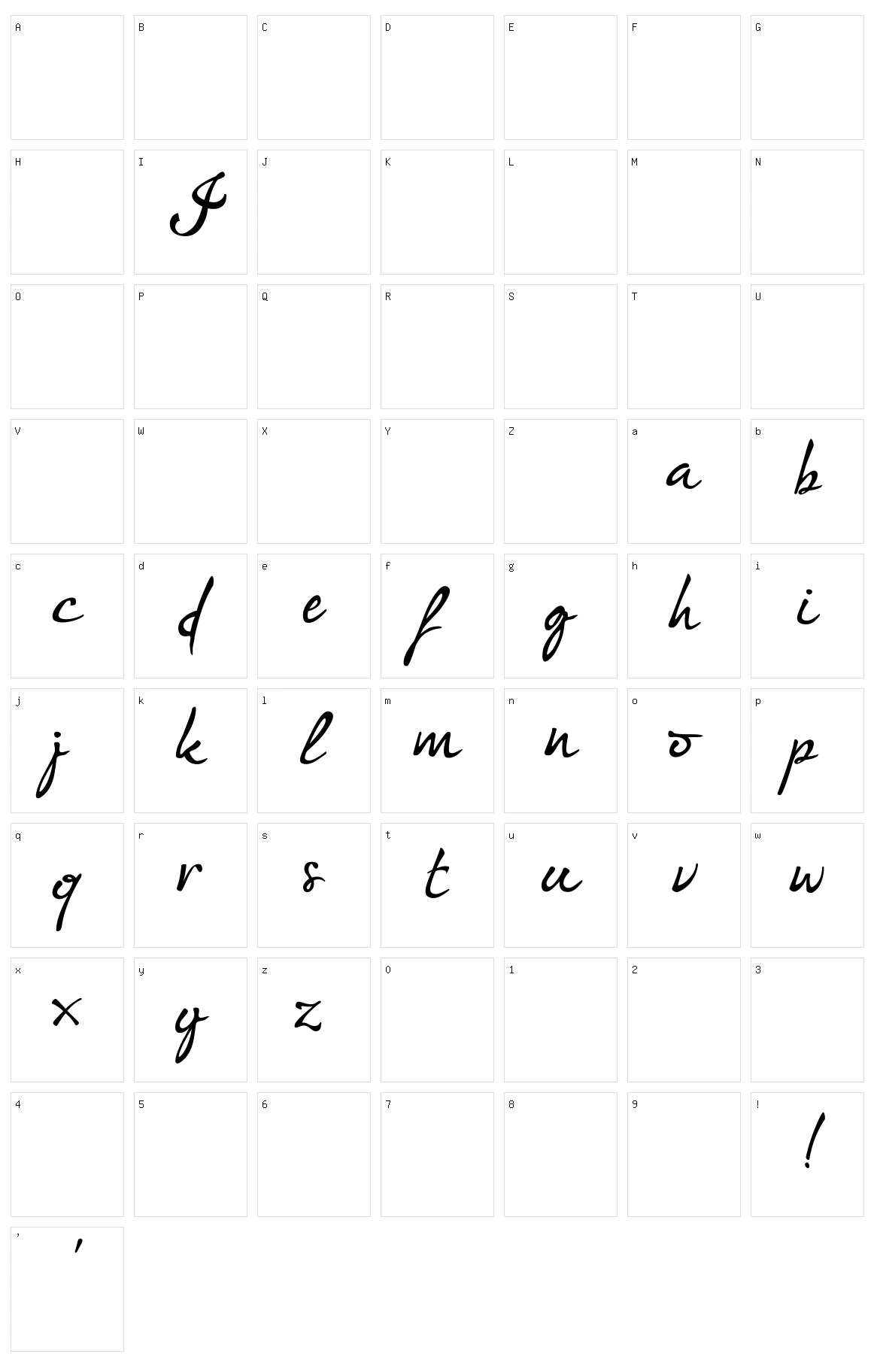
The free font I'm fashionista! is carefully designed by Fontscafe.com, showcasing a thoughtful balance of creativity and usability and falls under the Script font style. When you download the ZIP file, it contains only 268.4 KB of font files, making it lightweight and quick to download. Please review the license details below to understand permitted usage and distribution rights. If license information is not available, we recommend using this font for personal projects only or contacting the author directly for commercial usage permissions.